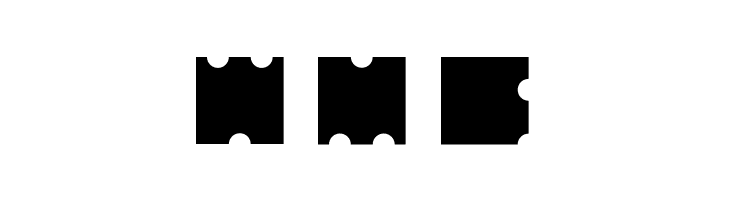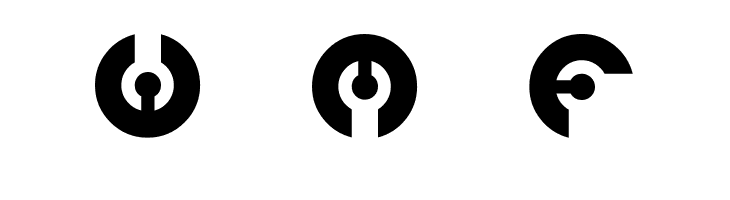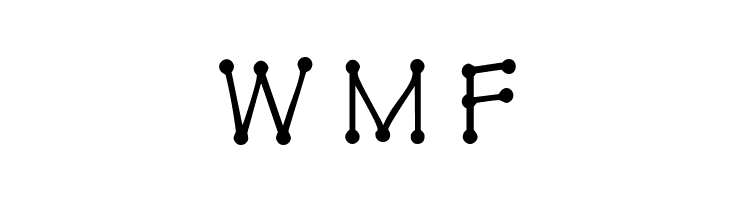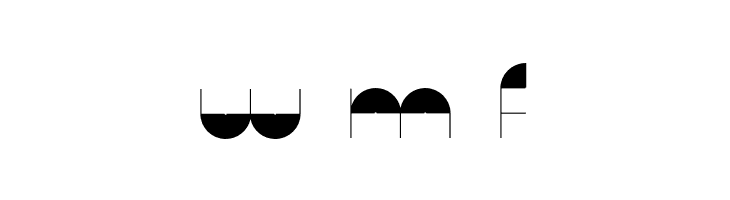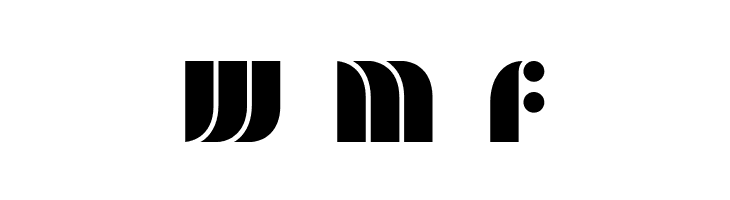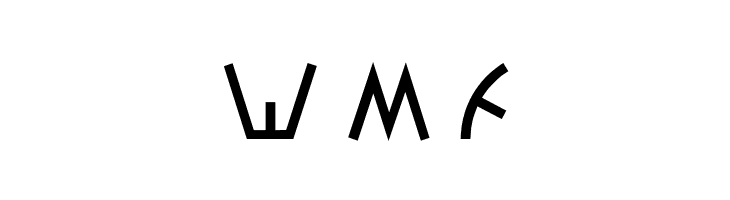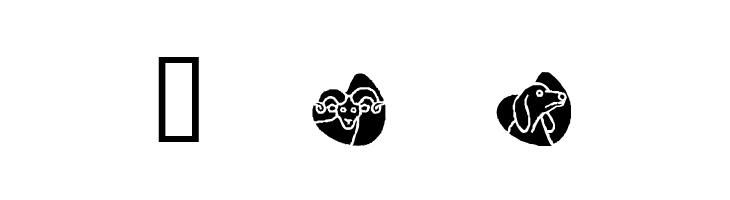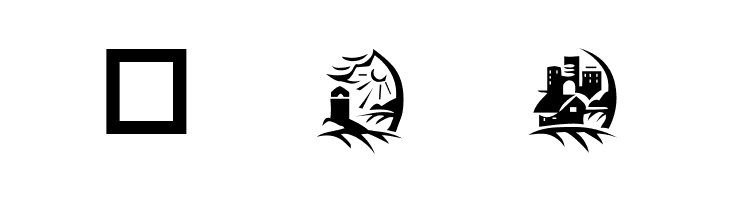
• EightBaller
A bold, playful font with letters in circular black backgrounds and white, hand-drawn characters.
• little think BIG IMPACT
A bold, playful font with circular cutouts and a strong visual impact.
• JI Pearl Necklace
An elegant, decorative font with uppercase letters encased in circular shapes.
• Ballers Normal
A bold, geometric font with circular elements and a modern, playful style.
• 1ButtonAL
A playful, button-like font with characters encased in circular outlines, ideal for creative projects.
• Chlod
A playful, cartoonish font with characters embedded in circular faces.
• Batik Gangster Normal
A bold, decorative font with playful curves and circular motifs.
• Consume or Die
A bold, geometric font with circular, grid-based characters.
• Dennis Vallera
A modern, decorative font with circular, geometric letterforms and thin lines.
• Slinkster v9 Regular